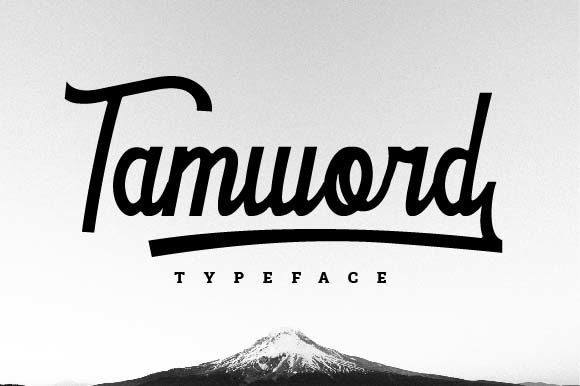
Journey into the world of Tamword, a script font family that exudes elegance and charm. Designed to elevate your packaging designs to new heights, Tamword's delicate strokes and graceful curves bring a touch of sophistication to any project. Created by the talented Prioritype, this font is a masterpiece of simplicity and variation, ensuring your designs stand out from the crowd.
Tamword's balanced and varied design makes it the perfect choice for a wide range of packaging projects. Its delicate strokes and graceful curves add a touch of refinement to product labels, while its sturdy structure ensures that your message is conveyed with impact. Whether you're designing packaging for luxury goods, fashion items, or everyday products, Tamword will transform your designs into works of art.
With its effortless flow and elegant style, Tamword is also an exceptional choice for branding and logo design. Its ability to convey both sophistication and approachability makes it perfect for businesses looking to create a lasting impression. From sleek and modern logos to timeless and classic designs, Tamword has the versatility to adapt to any brand's unique personality.
But what truly sets Tamword apart is its emotional appeal. This font has the power to evoke feelings of nostalgia, joy, and sophistication, making it the perfect choice for projects that aim to connect with customers on a deeper level. Whether you're designing packaging for a cherished family heirloom or creating a brand identity for a luxury boutique, Tamword will infuse your designs with a sense of warmth and authenticity.